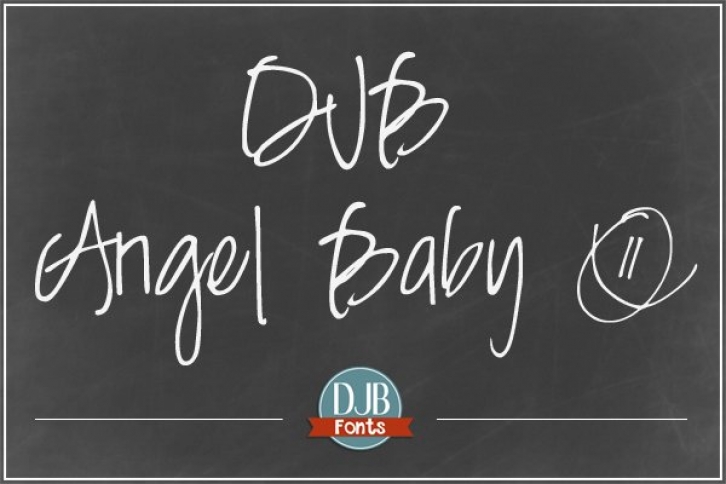
Beautiful print font with a script look that is great for invitations, announcements and more. It also contains European language characters.
One of the most popular of DJB Fonts, this realistic, handwritten font contains a full upper and lower case alphabet, numbers, punctuation and Internatinal language characters (European/South American).
This is a beautiful hybrid, modern calligraphy font for invitations and announcements.